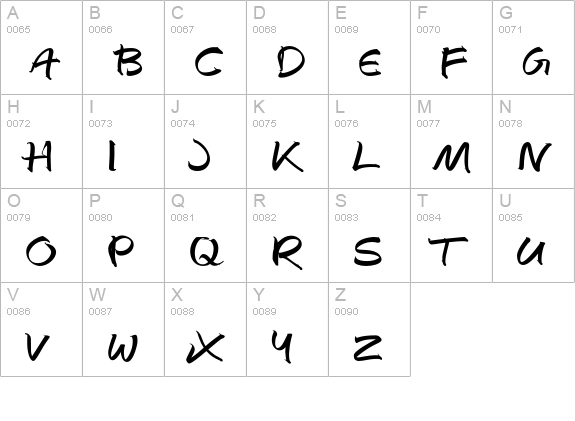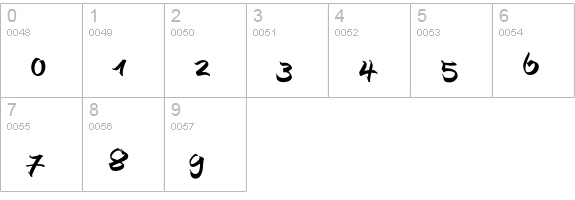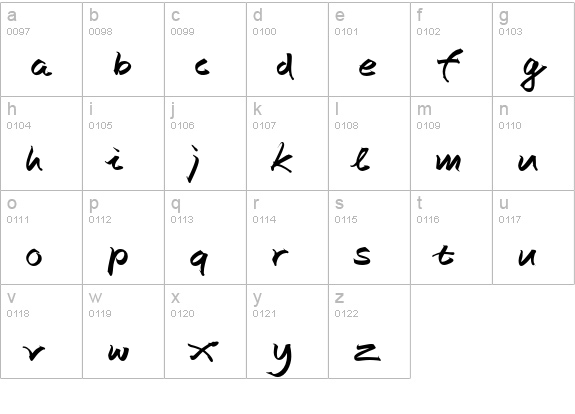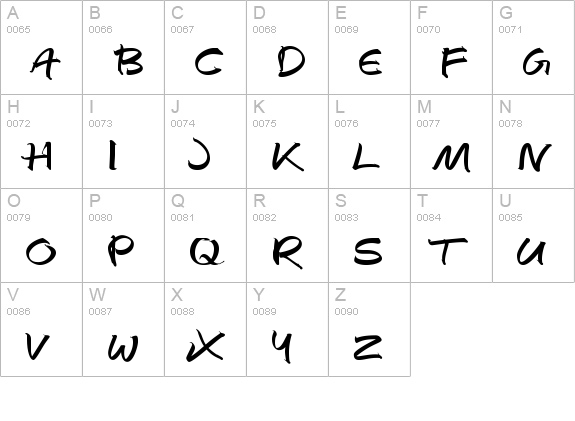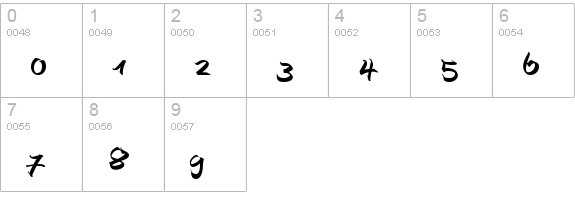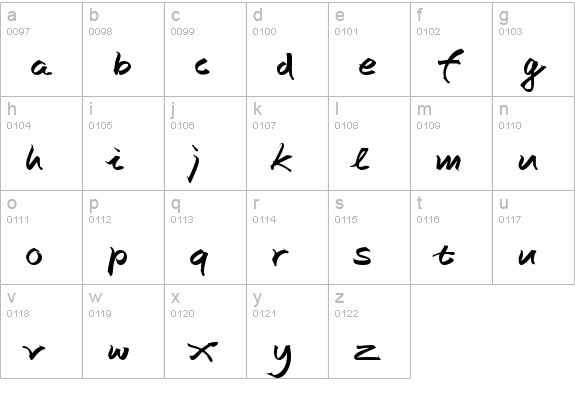
AutographScriptEF-BoldAlt is a stylish and elegant font that exudes sophistication and charm. Its bold strokes and unique alternate characters make it perfect for adding a touch of flair to any design project. Whether you're creating invitations, greeting cards, or marketing materials, this font will make your text stand out with its modern yet classic appeal. The best part is, AutographScriptEF-BoldAlt is available for free download at FontsMarket.com. Now you can elevate your designs without breaking the bank. Don't miss out on the opportunity to add this stunning font to your collection and take your projects to the next level.